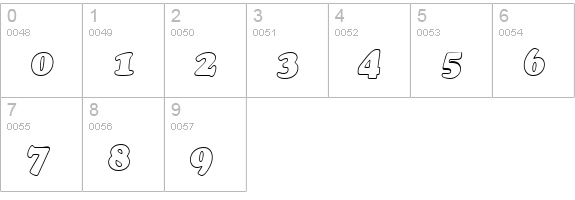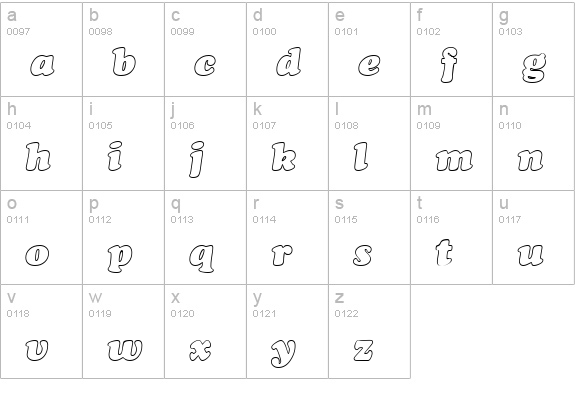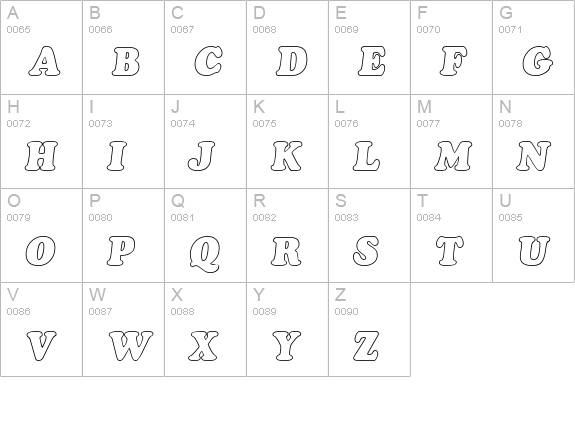
Cookie Hollow Italic Font Details
Cookie Hollow Italic is a distinctive, italic variant in the Cookie typeface family \xE2\x80\x94 well suited to design and typography projects.
Introducing Cookie Hollow Italic font, a whimsical and playful typeface perfect for adding a touch of charm to your designs. This delightful font features unique hollowed-out letterforms that exude a sense of fun and creativity. Whether you're designing invitations, greeting cards, or social media graphics, Cookie Hollow Italic will surely make your text stand out. Best of all, Cookie Hollow Italic font is completely free to download at FontsMarket.com. So go ahead and bring a sweet and playful touch to your projects with this delightful typeface.